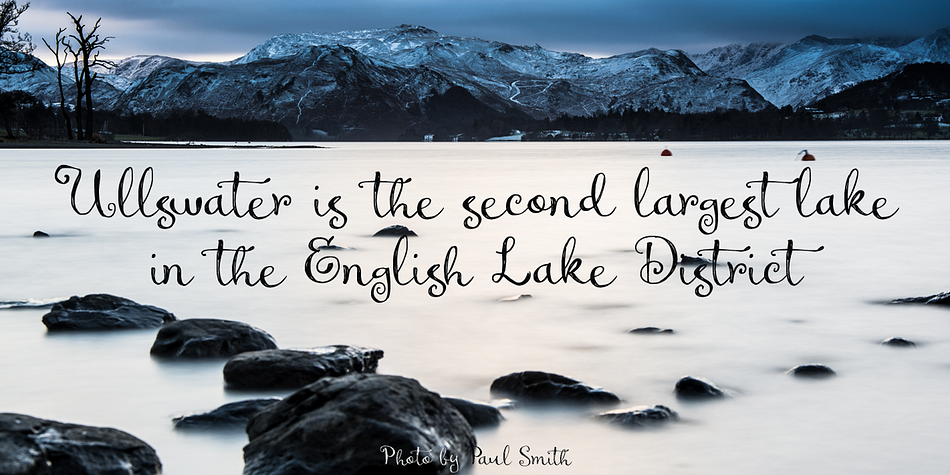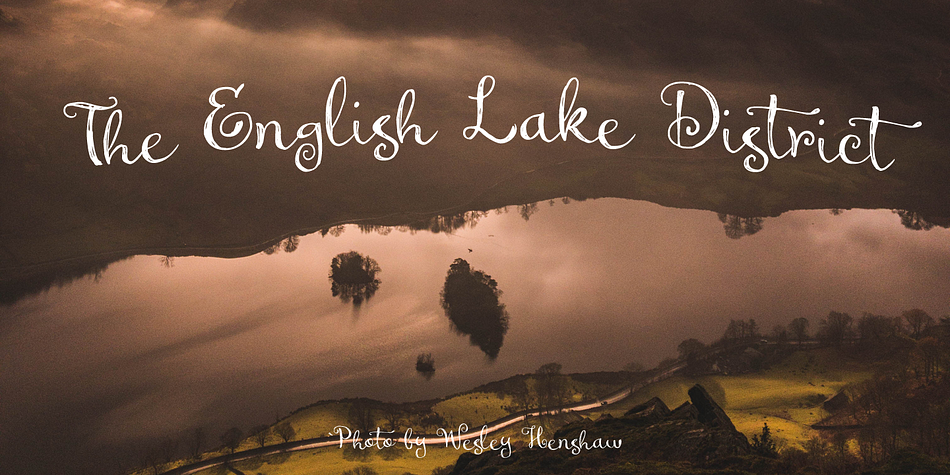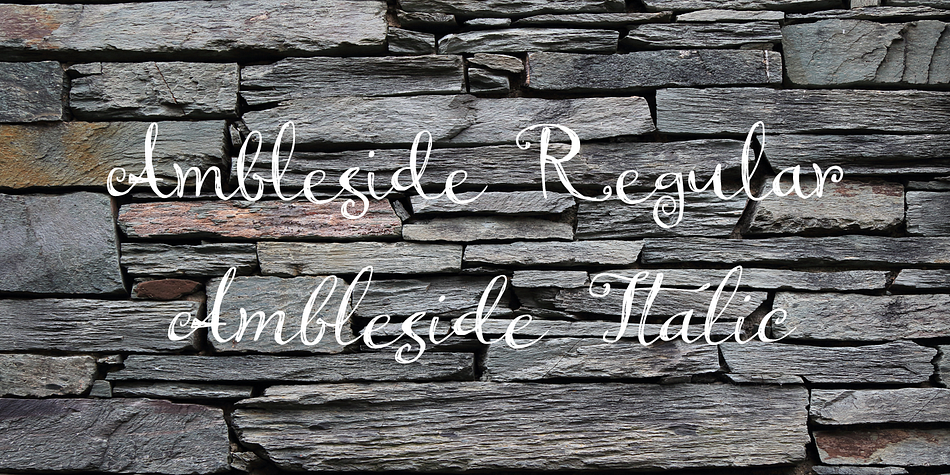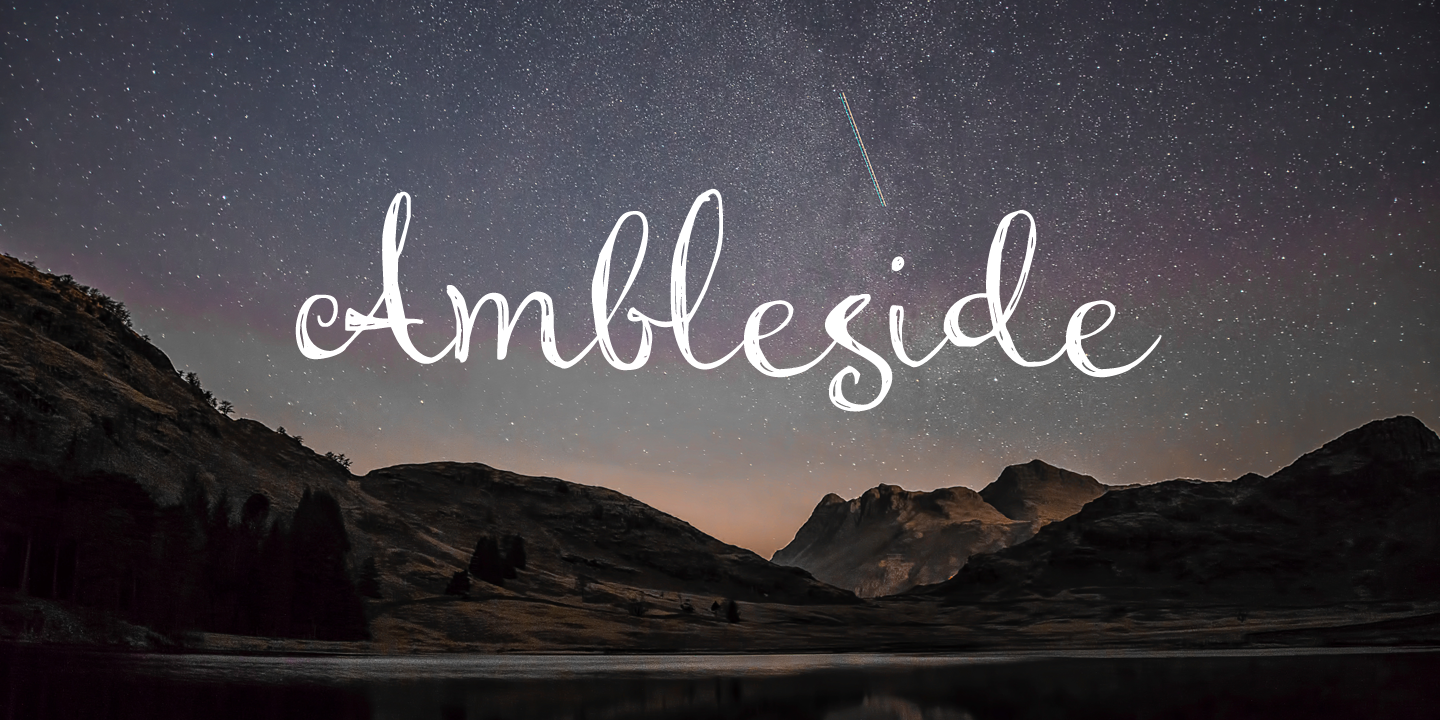
Designed by David Kerkhoff, Ambleside is a script font family. This typeface has two styles and was published by Hanoded.
Ambleside is a town in the English Lake District. I used to live and work there, so I decided to name a font after it.
Ambleside font is a handmade connected script font. It’s a little rough, but loveable nonetheless. Comes with all the diacritics you need!